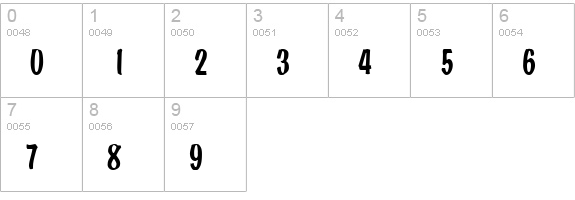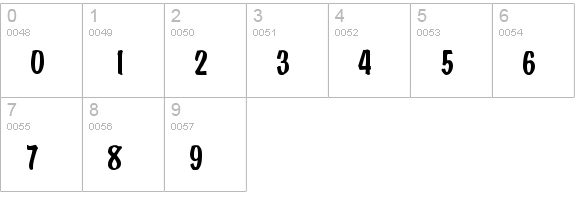
Brandyscript Font Details
Brandyscript font is a beautiful and elegant script typeface that exudes sophistication and charm. With its flowing curves and stylish swashes, Brandyscript is perfect for adding a touch of luxury to your designs. Whether you're creating wedding invitations, branding materials, or social media graphics, this font will elevate your projects to the next level. The best part? Brandyscript is available for free download at FontsMarket.com. This means you can easily access this stunning font and use it in your personal and commercial projects without any cost. Don't miss out on the opportunity to enhance your designs with the timeless beauty of Brandyscript font. Download it today and start creating stunning visuals that will leave a lasting impression.